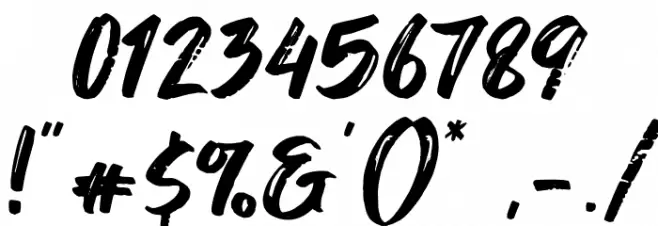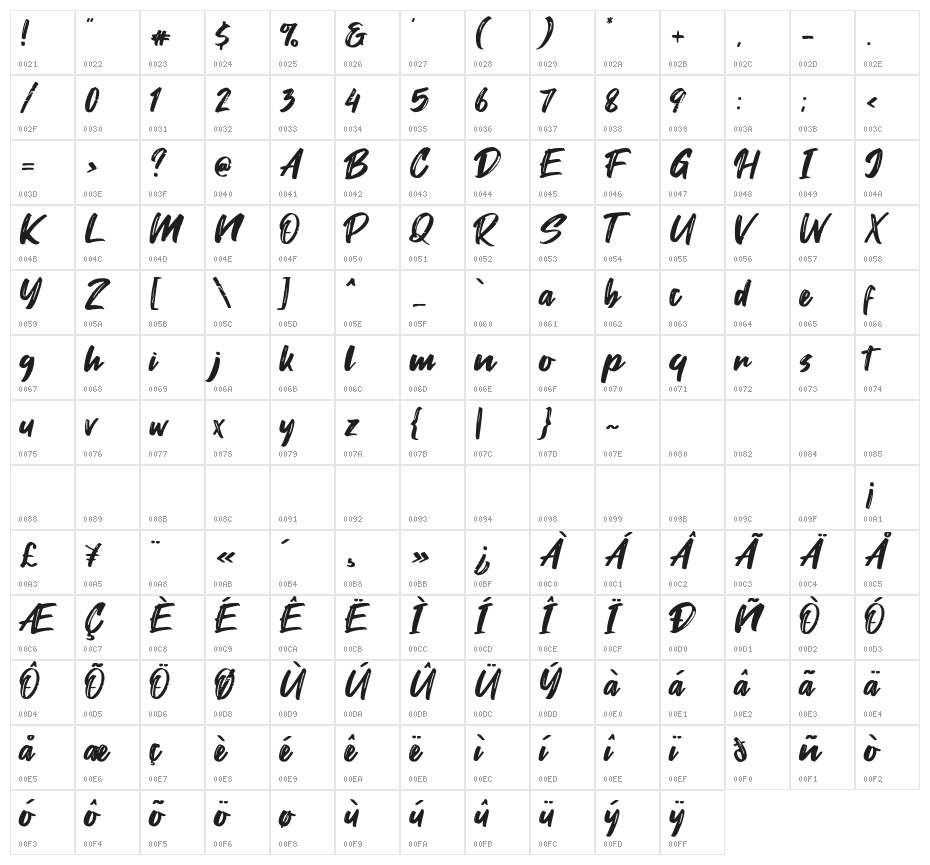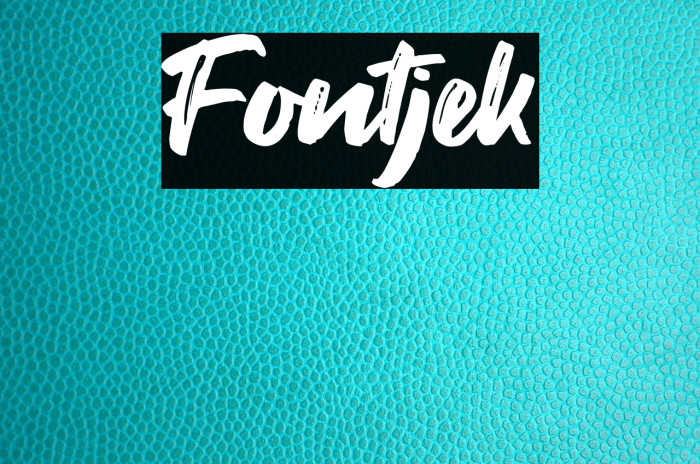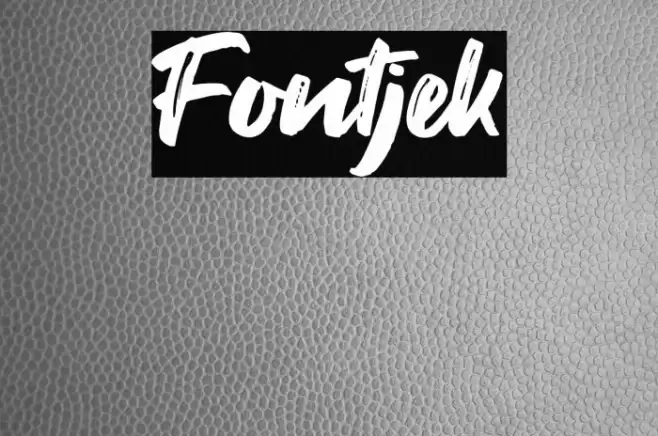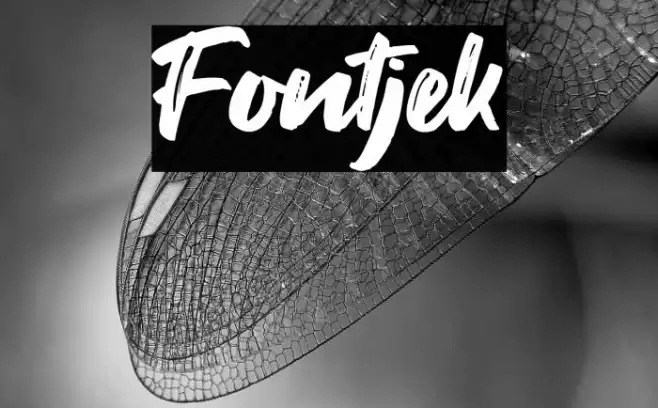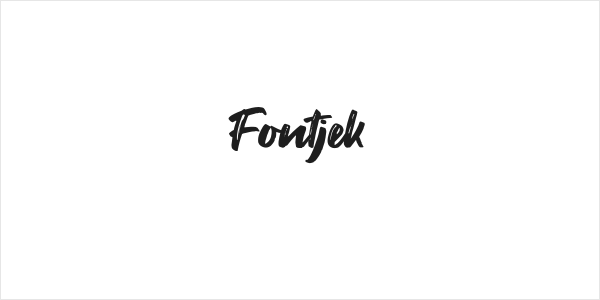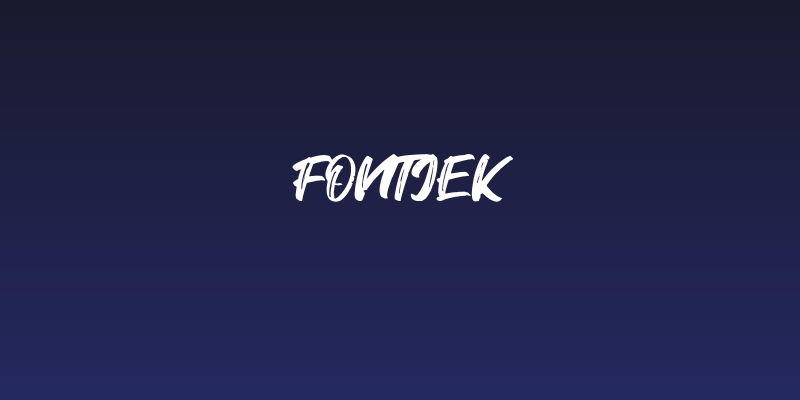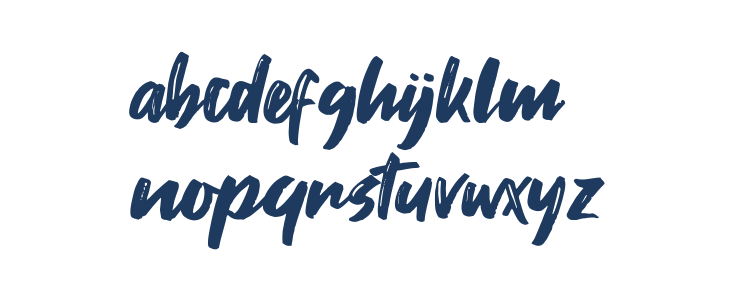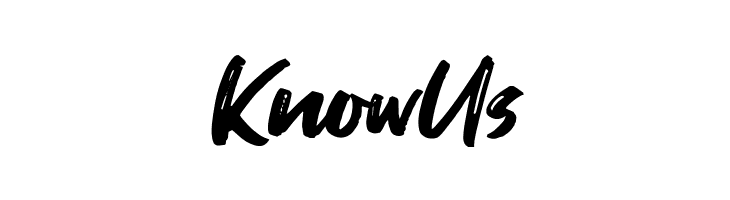
Fontjek Font
Fontjek Description
This font features a bold, expressive brush script style that exudes energy and dynamism. The letters are crafted with a hand-painted effect, showcasing irregular strokes and varying thicknesses that add a sense of movement and spontaneity. The uppercase and lowercase characters maintain a cohesive style, with the uppercase being slightly more pronounced. Numbers and special characters are designed with the same artistic flair, making them stand out. This font is ideal for projects that require a personal touch or a creative, artistic vibe.
| Proposed Projects | Ideal for branding, posters, invitations, and any project requiring a creative, artistic touch. |